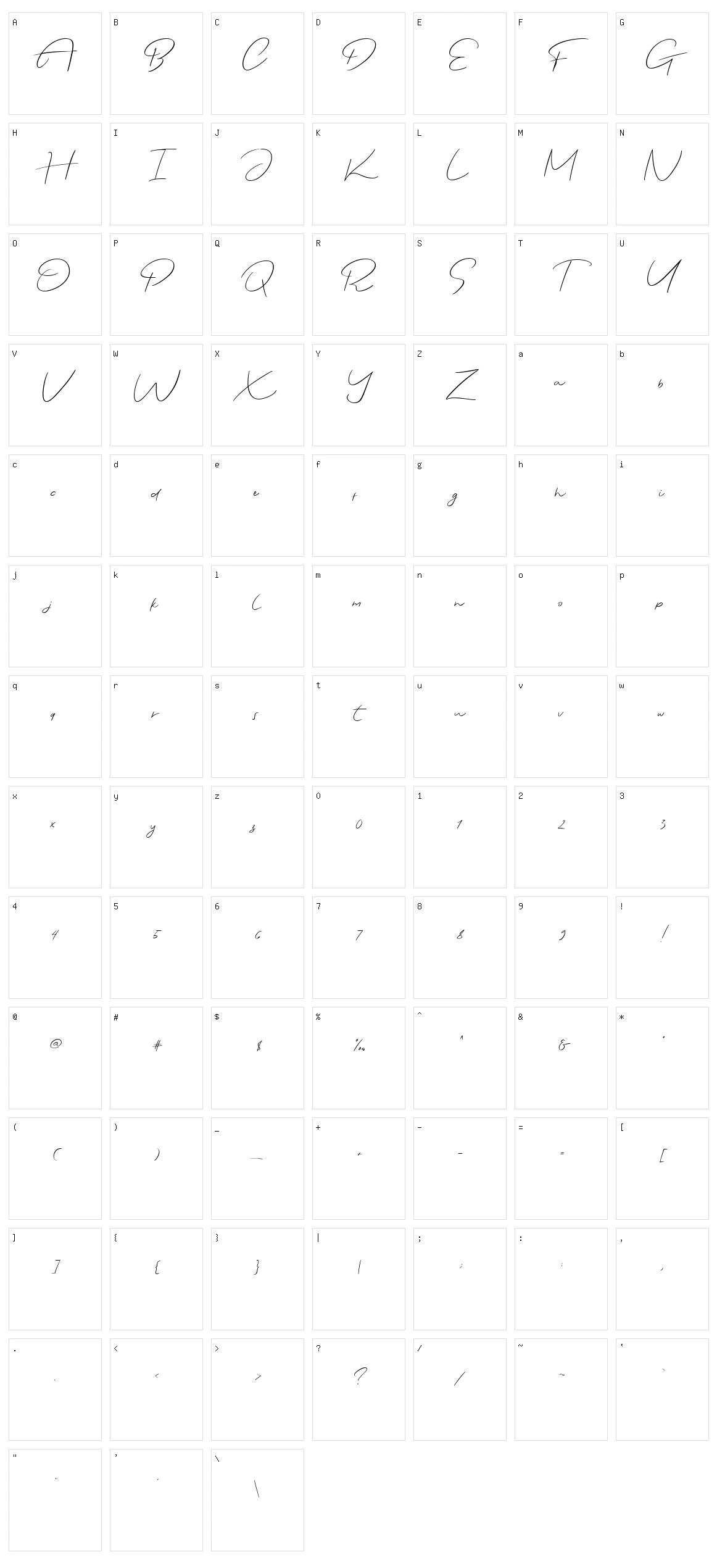
The free font Justmine is carefully designed by Glyphstyle, showcasing a thoughtful balance of creativity and usability and falls under the Script font style. When you download the ZIP file, it contains only 81.18 KB of font files, making it lightweight and quick to download. Please review the license details below to understand permitted usage and distribution rights. If license information is not available, we recommend using this font for personal projects only or contacting the author directly for commercial usage permissions.